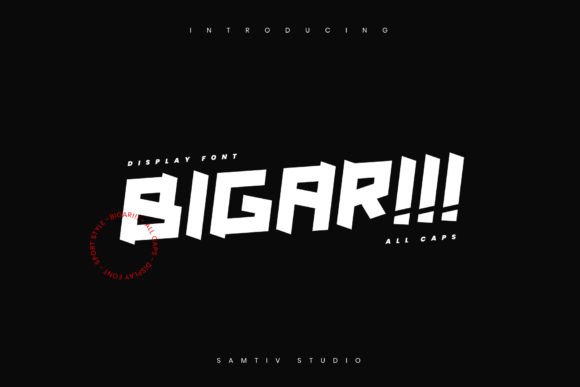
Bigar: A Modern, Sport-Style Display Font for Dynamic Design
When it comes to choosing a display font that stands out while maintaining readability, Bigar is a name that should be at the top of your list. This modern, sport-style typeface brings a fresh energy to any project, making it an excellent choice for designers and developers looking to add a bold, confident visual identity.
What Makes Bigar Unique?
Bigar is designed with a contemporary aesthetic that blends elements of sports typography with clean, professional lines. Its sharp edges and dynamic curves give it a sense of motion, making it ideal for projects that require a strong visual impact. Whether you're working on a website, app interface, or marketing material, Bigar can help you convey a message with clarity and style.
The font’s structure is both functional and expressive. It maintains a high level of legibility even at smaller sizes, which is crucial for digital interfaces where space is often limited. At the same time, its bold strokes and open letterforms ensure that it commands attention when used in larger formats, such as headlines or logos.
Applications of Bigar in Modern Design
Bigar’s versatility makes it suitable for a wide range of design applications. In the world of web design, it can be used for headings, banners, and call-to-action buttons, adding a sense of urgency and excitement to user experiences. For mobile app development, Bigar helps create a cohesive visual language that aligns with the fast-paced nature of digital interactions.
In branding, Bigar can serve as the foundation for a company’s visual identity. Its sporty yet sophisticated look is perfect for industries like fitness, technology, and entertainment, where innovation and energy are key. By incorporating Bigar into your brand assets, you can communicate a message of confidence and forward-thinking without sacrificing professionalism.
For print materials, Bigar adds a modern flair to everything from brochures and posters to packaging and signage. Its clean lines and strong presence make it easy to read in both large and small formats, ensuring that your message remains clear and impactful regardless of the medium.
Why Choose Bigar for Your Projects?
One of the main reasons designers choose Bigar is its ability to enhance the overall visual appeal of a project. Its unique combination of sportiness and elegance allows it to stand out without overwhelming the viewer. This balance is essential in today’s competitive design landscape, where first impressions matter more than ever.
Another advantage of Bigar is its adaptability. It works well in both dark and light environments, making it a reliable choice for a variety of design contexts. Whether you’re creating a minimalist layout or a vibrant, high-energy design, Bigar can seamlessly integrate into your workflow.
Additionally, Bigar is optimized for digital use, ensuring that it renders clearly on screens of all sizes. This is especially important for responsive web design, where fonts must maintain their integrity across different devices and resolutions. With Bigar, you can be confident that your text will look great no matter where it appears.
Best Practices for Using Bigar
To get the most out of Bigar, it’s important to use it strategically. While it’s a powerful display font, it’s best reserved for headings, titles, and other prominent text elements. Using it for body copy can lead to readability issues, as its bold structure may not be as comfortable for long-form reading.
Pairing Bigar with complementary fonts can also enhance its effectiveness. For example, combining it with a simple sans-serif like Roboto or Open Sans can create a balanced and professional look. This contrast helps guide the viewer’s eye through the design while maintaining visual harmony.
When using Bigar in a digital project, consider the context in which it will be viewed. If your audience is primarily on mobile devices, ensure that the font size and spacing are optimized for smaller screens. Testing your design on multiple devices can help you identify and address any potential issues before launch.
Bigar in Different Industries
Bigar’s dynamic appearance makes it a popular choice across various industries. In the fitness sector, it’s often used to promote workout programs, gym memberships, and health-related content. Its energetic feel aligns perfectly with the goals of these businesses, helping to inspire and motivate users.
In the tech industry, Bigar is frequently used for product launches, software interfaces, and digital campaigns. Its modern look reflects the innovative spirit of technology companies, making it an ideal choice for brands that want to project a cutting-edge image.
For the entertainment and media sectors, Bigar adds a sense of excitement to promotional materials, event listings, and social media content. Its bold and distinctive style helps grab attention in a crowded digital space, making it easier for audiences to engage with your message.
Conclusion
Bigar is more than just a font—it’s a design tool that can elevate your work and leave a lasting impression. With its sport-style flair and modern sensibilities, it offers a fresh approach to typography that is both visually striking and functionally sound. Whether you’re designing for the web, print, or digital media, Bigar is a reliable choice that can help you achieve your creative goals with confidence and style.